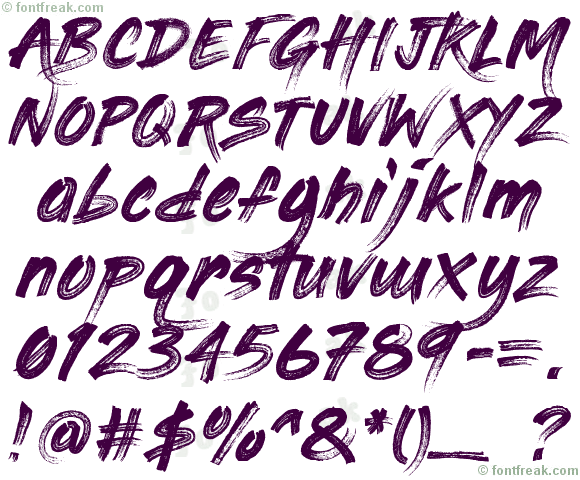
PaintingWithChocolate
The PaintingWithChocolate font by mooze is a captivating display typeface that fuses artistic flair with a touch of whimsy. This font, categorized as a handwritten style, boasts a unique, expressive character that makes it stand out in any design project. Its irregular stroke weight and fluid forms create a sense of spontaneity, reminiscent of brush strokes dipped in rich chocolate, which adds a delightful visual texture.
Visually, PaintingWithChocolate features a playful contrast between bold and delicate lines, resulting in a dynamic presence that draws the eye. The spacing is intentionally loose, allowing the letters to breathe and enhancing legibility while maintaining an artistic feel. Decorative elements such as swirls and playful curves give the font its distinct personality, making it ideal for creative applications.
This font is particularly well-suited for various use cases, including wedding invitations where its charm can evoke a sense of romance, or movie posters that seek to capture attention with a unique artistic twist. Additionally, it shines in restaurant menus, where its playful vibe can reflect a fun and inviting atmosphere. Small business owners looking to establish a creative brand identity will also find it valuable for logo designs and promotional materials.
Targeting graphic designers, content creators, and small business entrepreneurs, the PaintingWithChocolate font free download offers an ideal solution for those seeking to inject creativity into their projects. It seamlessly blends the artistic with the functional, making it a versatile choice for a range of applications. Ultimately, what makes PaintingWithChocolate truly special is its ability to convey a sense of warmth and creativity, inviting viewers to engage with the content in a meaningful way. This font is not just a typeface; it's an artistic expression that elevates any design.